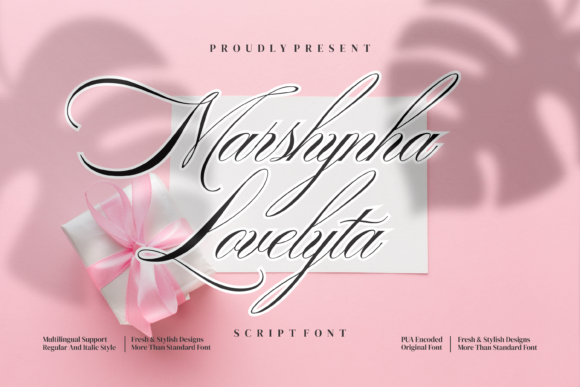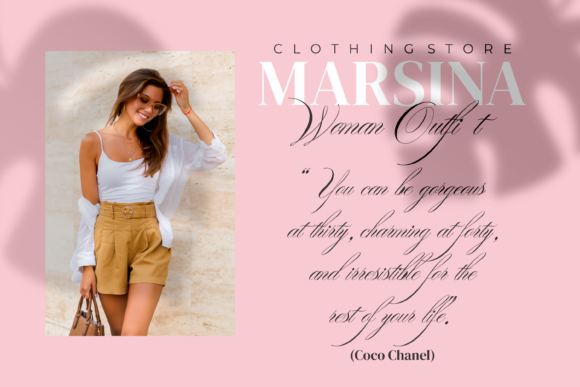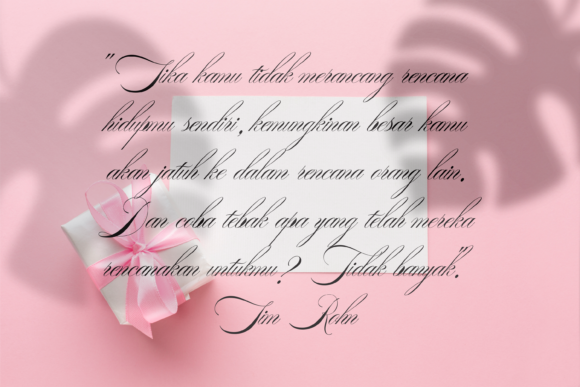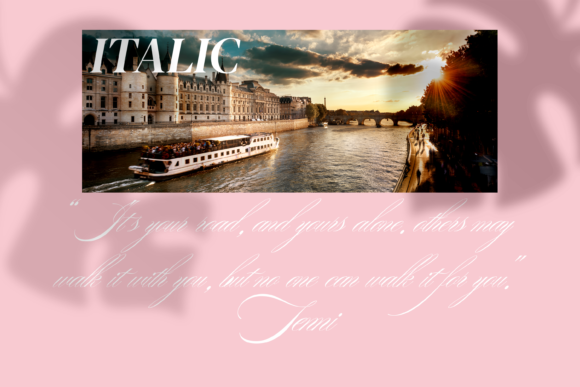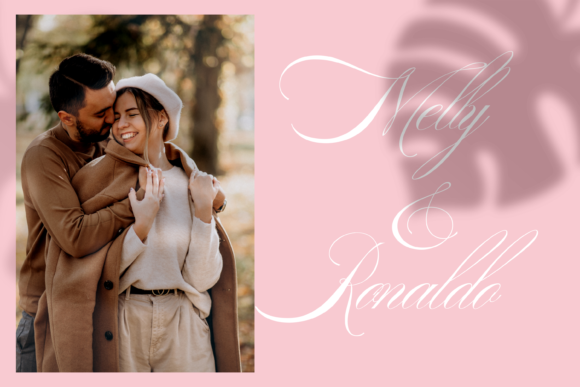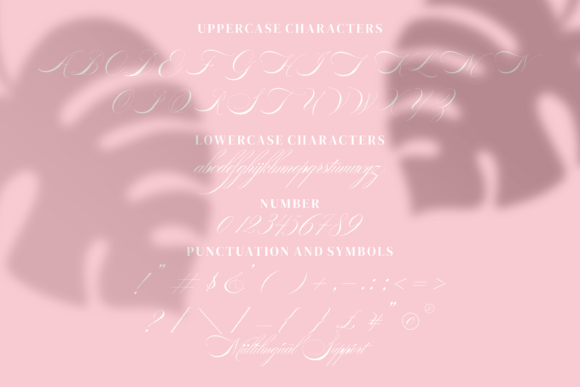
Marshynha Lovelytta Font
About Marshynha Lovelytta Font
Marshynha Lovelytta is an enchanting handwritten font. This versatile script font has a wide spectrum of applications ranging from greeting cards to headlines and is guaranteed to add a romantic feel to your next project.